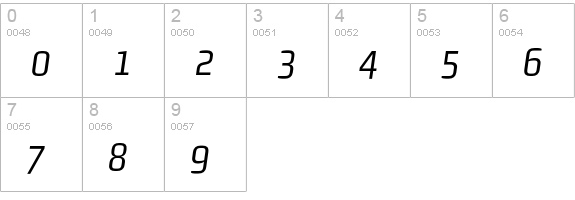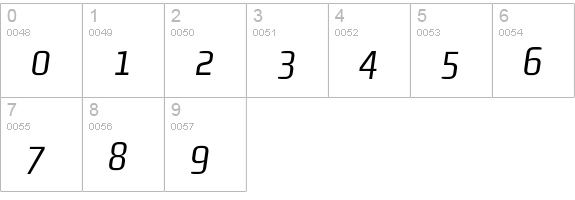
MorganSansCond ItalicOffice Font Details
MorganSansCond ItalicOffice font is a sleek and modern typeface that is perfect for adding a touch of sophistication to your projects. Its italic style lends a sense of elegance and flair, making it ideal for use in office settings where a professional and polished look is desired. This font offers a harmonious balance between modernity and readability, making it versatile for a wide range of design applications. Whether you are creating a sleek presentation, crafting marketing materials, or designing a stylish website, MorganSansCond ItalicOffice font will elevate your work to the next level. What's even better is that this font is available for free download at FontsMarket.com. So you can easily access this high-quality typeface without any cost, making it a valuable addition to your font library. Don't miss out on the opportunity to enhance your designs with the sophisticated charm of MorganSansCond ItalicOffice font. Download it today and see the difference it can make!